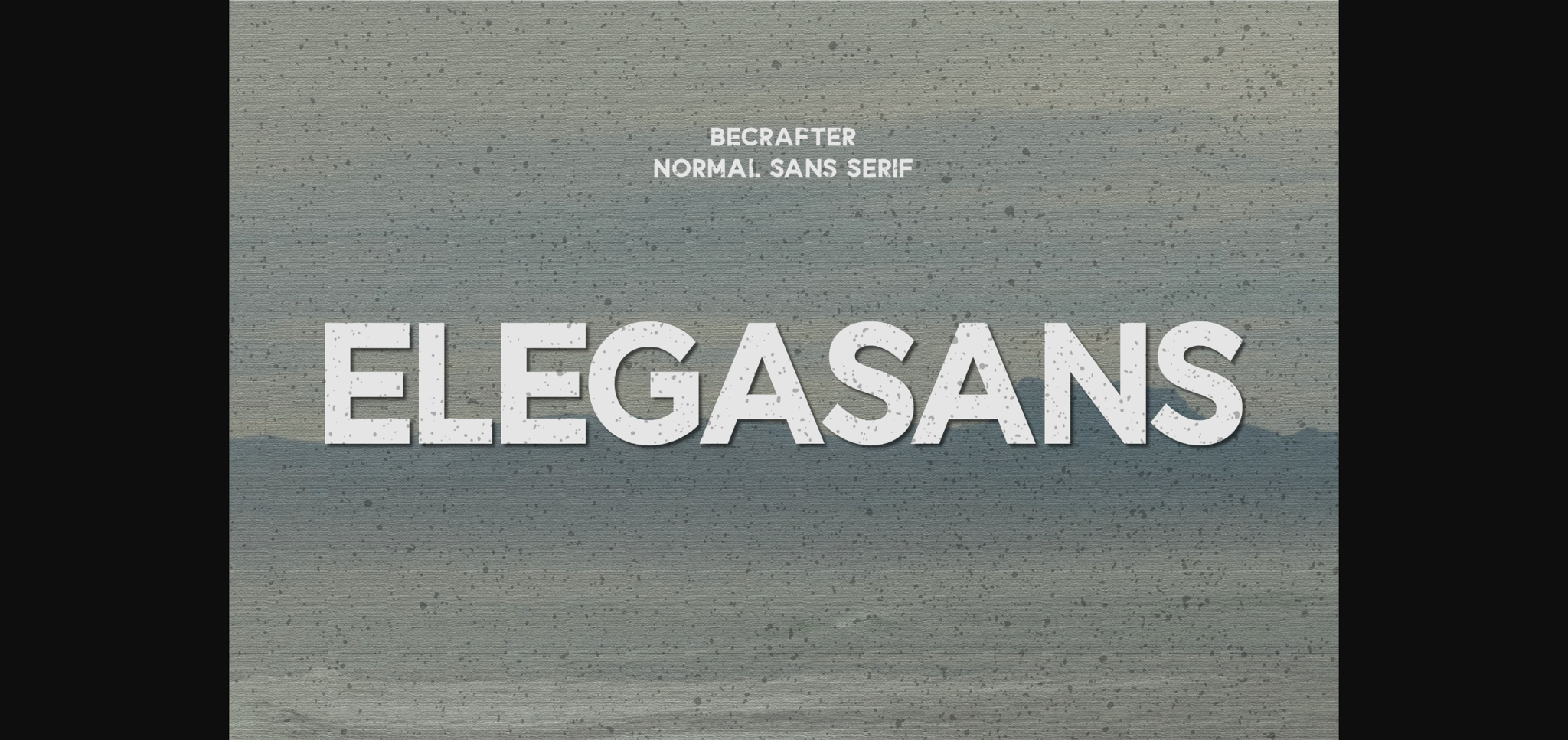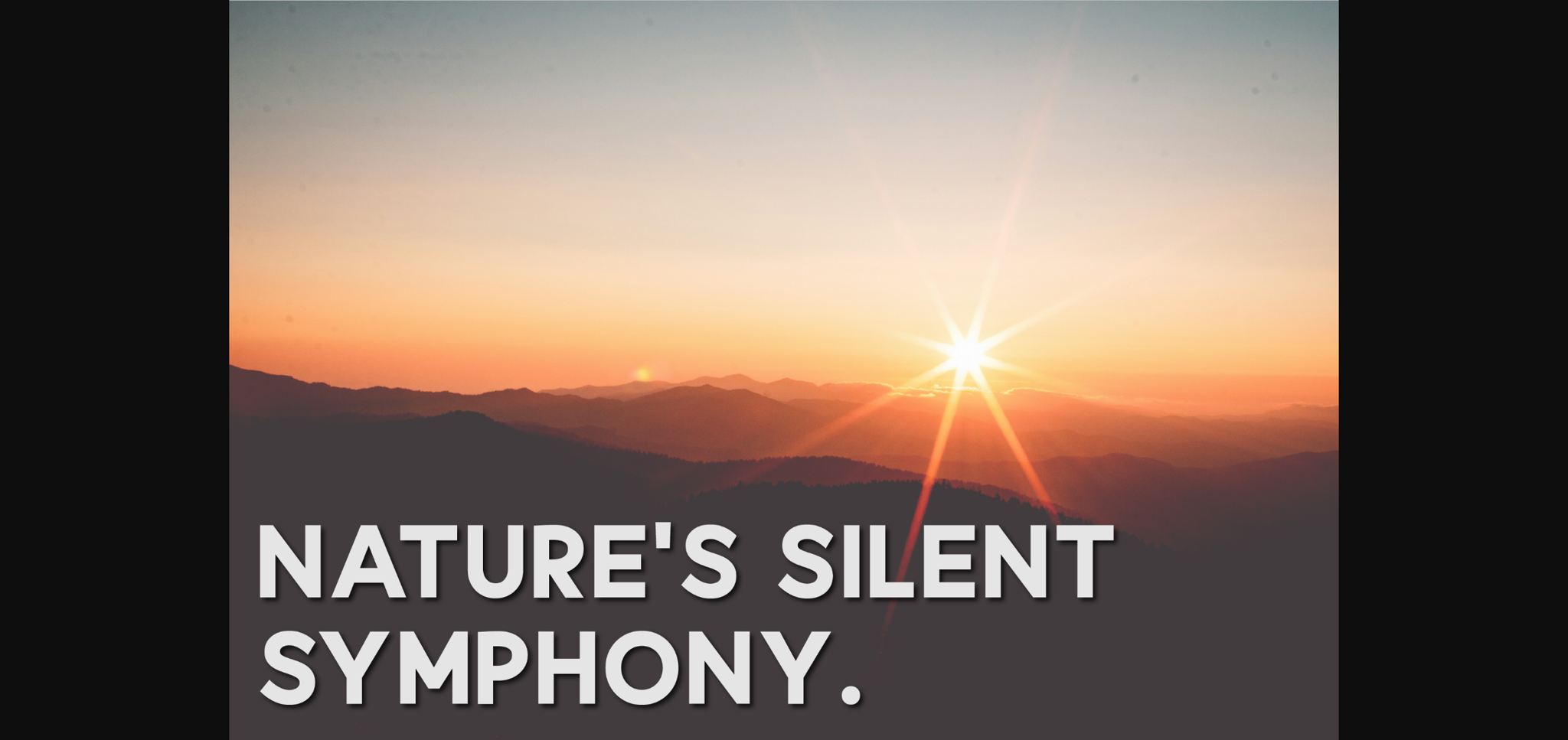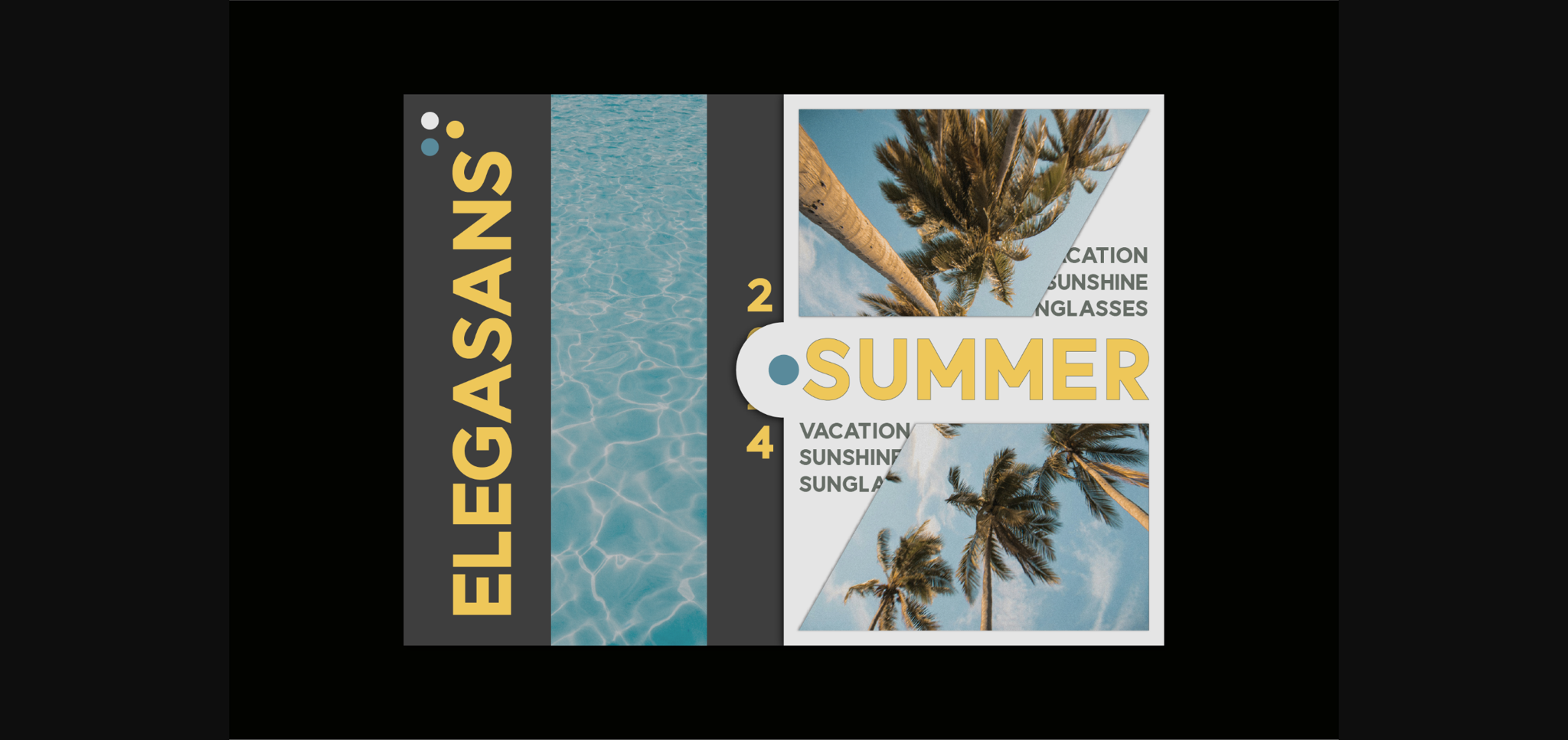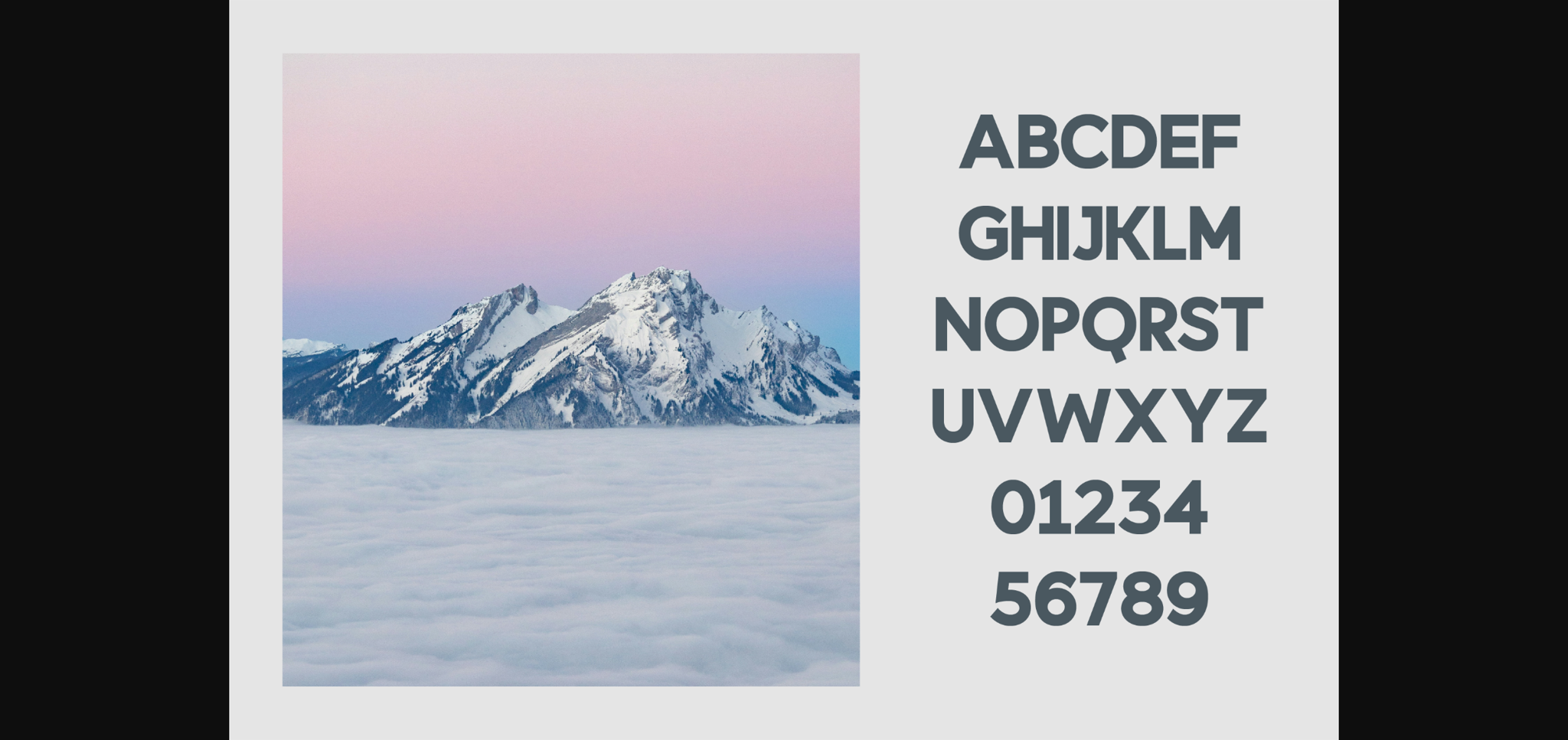
About Elegasans Font
Introducing Elegasans – a powerhouse of emphatic bold typeface. This chic, uppercase vintage sans-serif will instantly infuse a sense of sophistication and versatility to your creative output. From mesmerizing logos to compelling printed materials, Elegasans is your go-to font to turn any ordinary into the extraordinary!